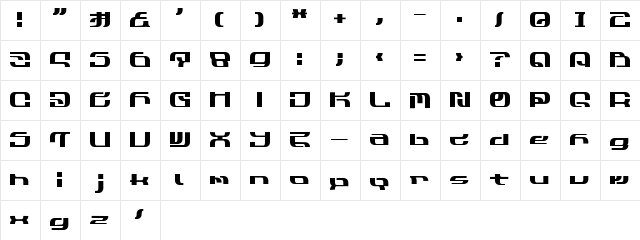
Cobra3 AL
Design Context for Cobra3 Typeface
Cobra3 is a composed and adaptable typeface that performs quietly and consistently across a wide range of design contexts.